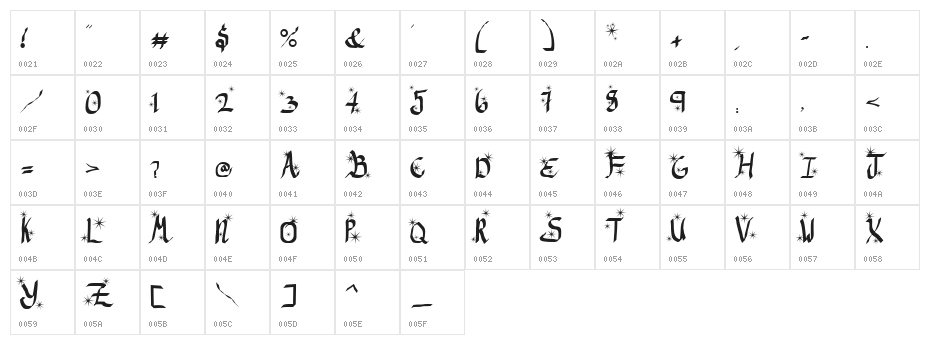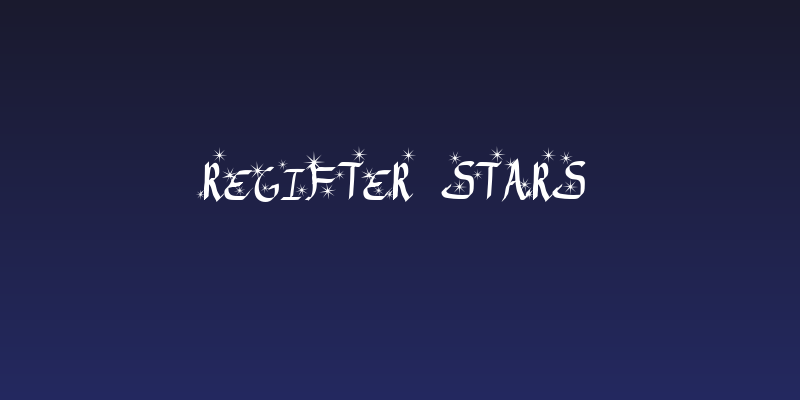
ReGifter Stars Font
ReGifter Stars Description
This font features a whimsical and decorative style, characterized by star-like embellishments that appear around each character. The letters have a playful, handwritten quality with a slight slant, adding a dynamic and energetic feel. The strokes are varied, with some parts being thicker and others thinner, creating a medium contrast. The overall appearance is festive and eye-catching, making it suitable for creative and celebratory designs. The font includes a full set of uppercase and lowercase letters, numbers, and a variety of special characters, all adorned with the distinctive star motif.
Use CaseHeadlines, Logos, Invitations
Proposed ProjectsIdeal for holiday cards, party invitations, festive posters, and playful branding projects.